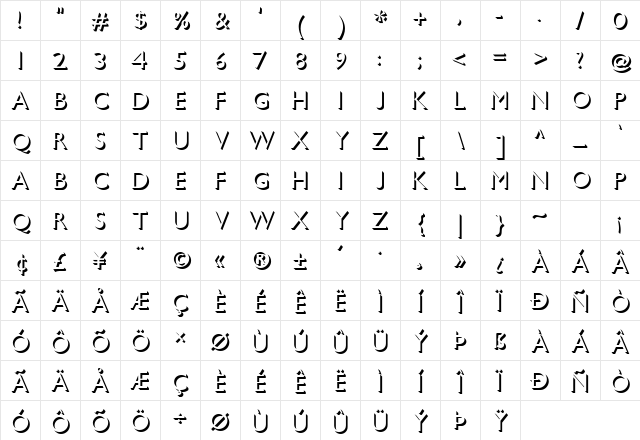
K22 EricGill Shadow Regular
Copyright: Toto 2011 based on Gill Sans Shadow 338 by Eric Gill (Monotype 1929)
Designer: Eric Gill
Design Context for K22 EricGill Shadow
K22 EricGill Shadow is built around its visual character rather than neutral utility - its distinctive forms are designed to make an impression at display sizes.
Font Pairing: Pair with a clean neutral sans-serif for body copy to let K22 EricGill Shadow's character lead without overwhelming the composition.
Pro Tip: Use K22 EricGill Shadow exclusively at display sizes - it was designed to be seen, not read at length. Let a neutral companion handle body copy.